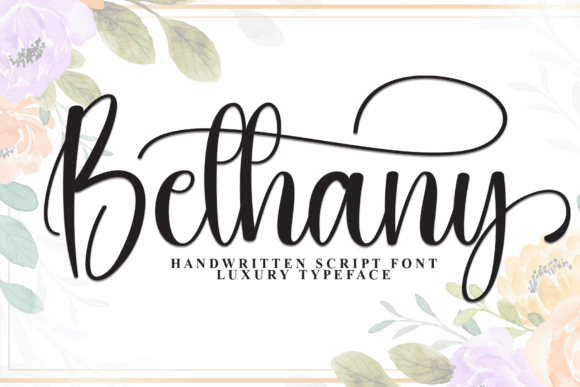
The Elusive Perfect Font: My Journey with Bethany
I still remember the countless hours I spent searching for the perfect font for a wedding invitation project. My client wanted something elegant, yet approachable; luxurious, yet not too formal. I scrolled through font after font, but nothing seemed quite right. That was until I stumbled upon Bethany, a luxury handwritten script font that has since become a staple in my design toolkit.
A First Impression: What I Love About Bethany
So, what makes Bethany so special? Here are a few things that immediately caught my attention:
- ✨ Elegant Loops and Transitions: Bethany features beautiful, flowing loops and smooth transitions that give it a refined, sophisticated feel.
- ✅ Versatility: This font is perfect for a wide range of projects, from invitations and stationery to social media graphics and boutique branding.
- 💫 Warmth and Approachability: Despite its luxurious feel, Bethany has a warm, approachable quality that makes it perfect for designs that need a personal touch.
The Honest Review: A Few Quirks to Consider
While Bethany is an amazing font, it’s not without its quirks. Here are a few things to keep in mind:
- 🤔 Legibility at Small Sizes: Like many script fonts, Bethany can be a bit tricky to read at very small sizes. Make sure to test it out at different sizes to ensure it’s legible for your project.
- ⚠️ Limited Use in Body Text: While Bethany is perfect for headings and titles, it’s not the best choice for long blocks of body text. Its elegant, cursive style is better suited for shorter pieces of text.
- Experiment with OpenType features like ligatures and stylistic alternates to add some extra flair to your design.
- Explore the various glyphs and stylistic alternates available in Bethany to customize your text.
Exploring Alternatives: Similar Fonts to Bethany
While Bethany is a unique font, there are other beautiful scripts that might suit your needs. Here are a few alternatives to consider:
- Lora: A elegant, modern script with a similar feel to Bethany. Use it for luxury branding and high-end invitations.
- Pacifico: A beautiful, flowing script with a more relaxed vibe. Perfect for casual designs and social media graphics.
- Great Vibes: A fun, energetic script with a playful feel. Use it for creative projects and kids’ designs.
- Alex Brush: A lovely, elegant script with a more traditional feel. Ideal for wedding stationery and formal events.
The Story Behind Bethany: Designer Inspiration
While the true story behind Bethany’s creation may be unknown, it’s easy to imagine that the designer was inspired by the elegance of handwritten calligraphy and the freedom of modern typography. With its flowing loops and refined style, Bethany is a true masterpiece of luxury typography.
Here are a few questions that might come up when working with Bethany:
- Q: What type of projects is Bethany best suited for?
- A: Bethany is perfect for invitations, stationery, social media graphics, and boutique branding.
- Q: Can I use Bethany for body text?
- A: While Bethany is beautiful, it’s best used for headings and titles. For body text, consider a more legible font.
- Q: Does Bethany support OpenType features?
- A: Yes, Bethany supports a range of OpenType features, including ligatures and stylistic alternates.
- Q: Is Bethany suitable for digital use?
- A: Absolutely! Bethany’s clean lines and elegant style make it perfect for both print and digital designs.